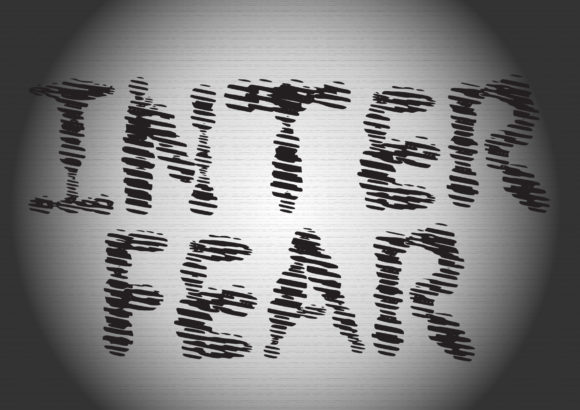
Indulge in the mesmerizing allure of Interfear Font, a display masterpiece crafted by GraphicsBam Fonts. Its captivating textured lines dance across your designs, evoking an air of elegance and intrigue that will leave a lasting impression.
Immerse yourself in the boundless possibilities that await with Interfear Font. With its versatility, it effortlessly transforms any invitation into an extraordinary work of art. Let your imagination soar as you craft unique designs that resonate with your individuality.
Unleash the power of Interfear Font to elevate your invitations to dizzying heights. Its textured lines add a touch of sophistication that speaks volumes about your discerning taste. Whether you're designing for a grand celebration or an intimate gathering, Interfear Font will effortlessly elevate the aesthetics of your invitations.
Step into a world of boundless creativity, where Interfear Font empowers you to express yourself like never before. Its versatility transcends invitations, making it the perfect choice for logos, branding, and any design project yearning for a touch of distinctive charm.
Don't settle for ordinary fonts. Embrace the captivating allure of Interfear Font and let its textured lines paint a symphony of elegance upon your designs. Let your creativity flow freely as you create unforgettable experiences that will captivate and inspire.